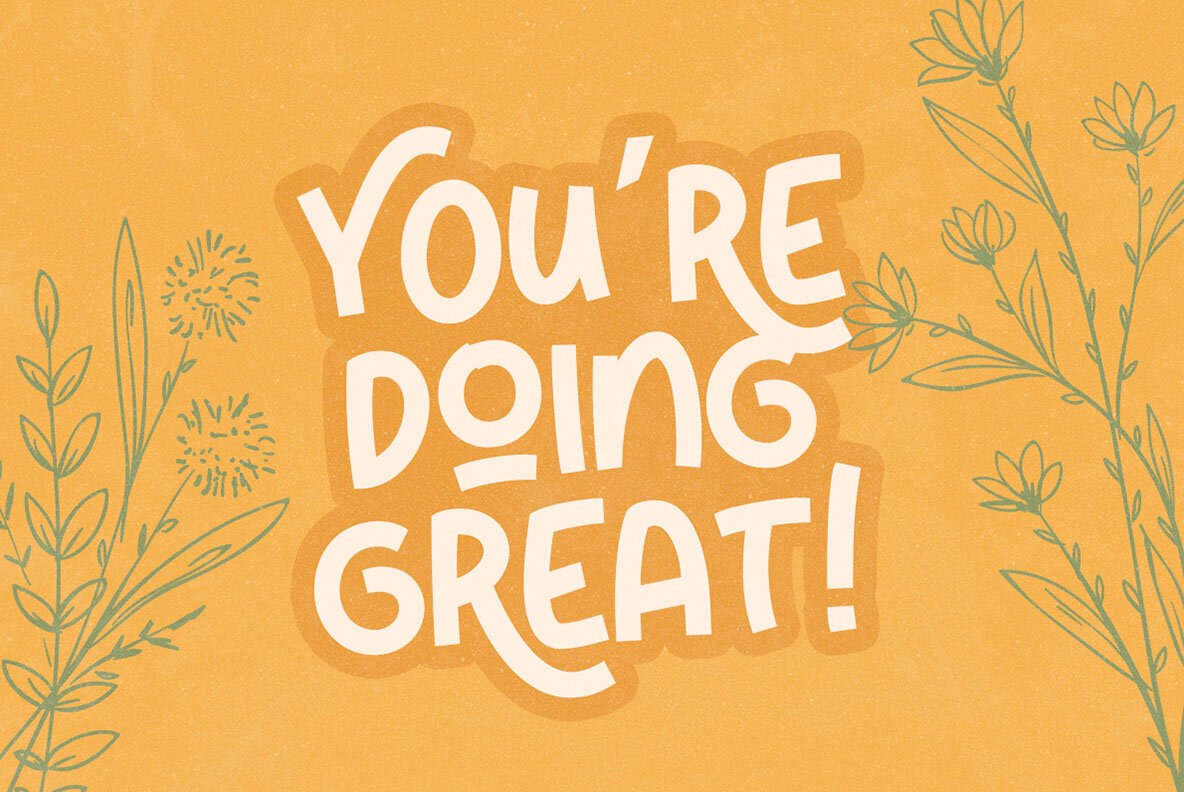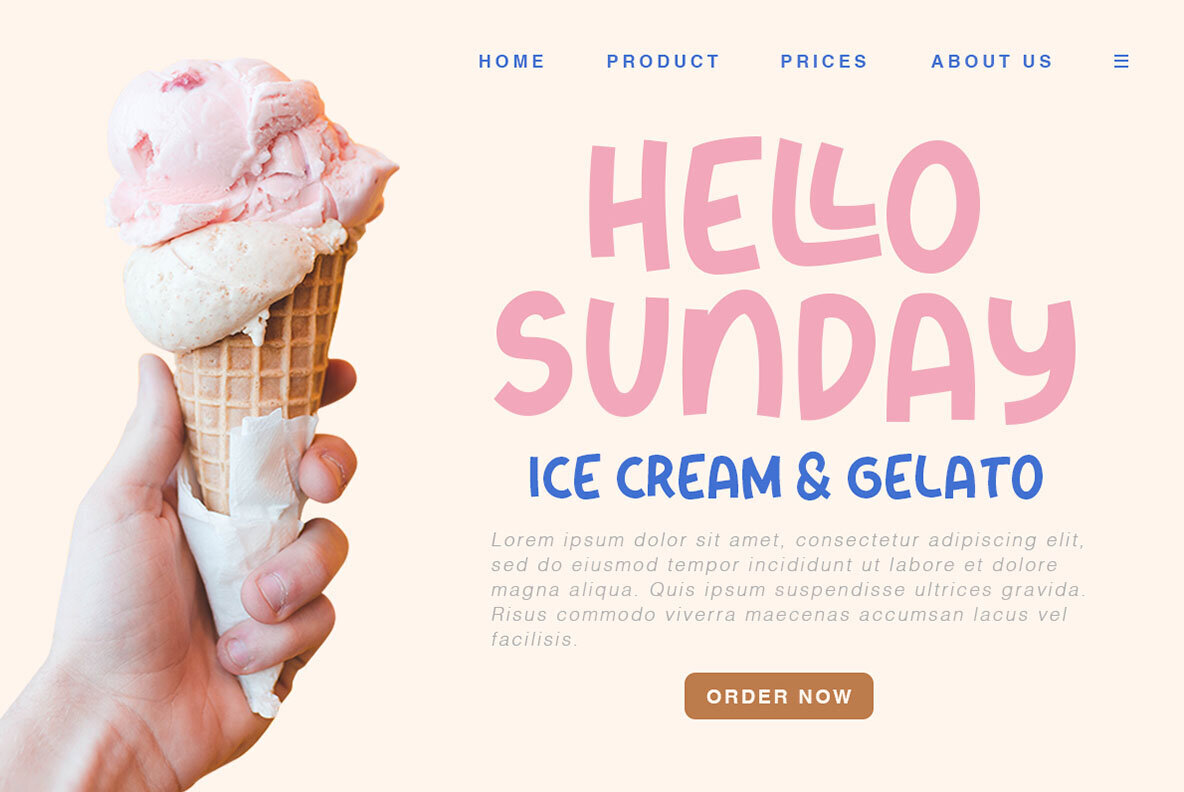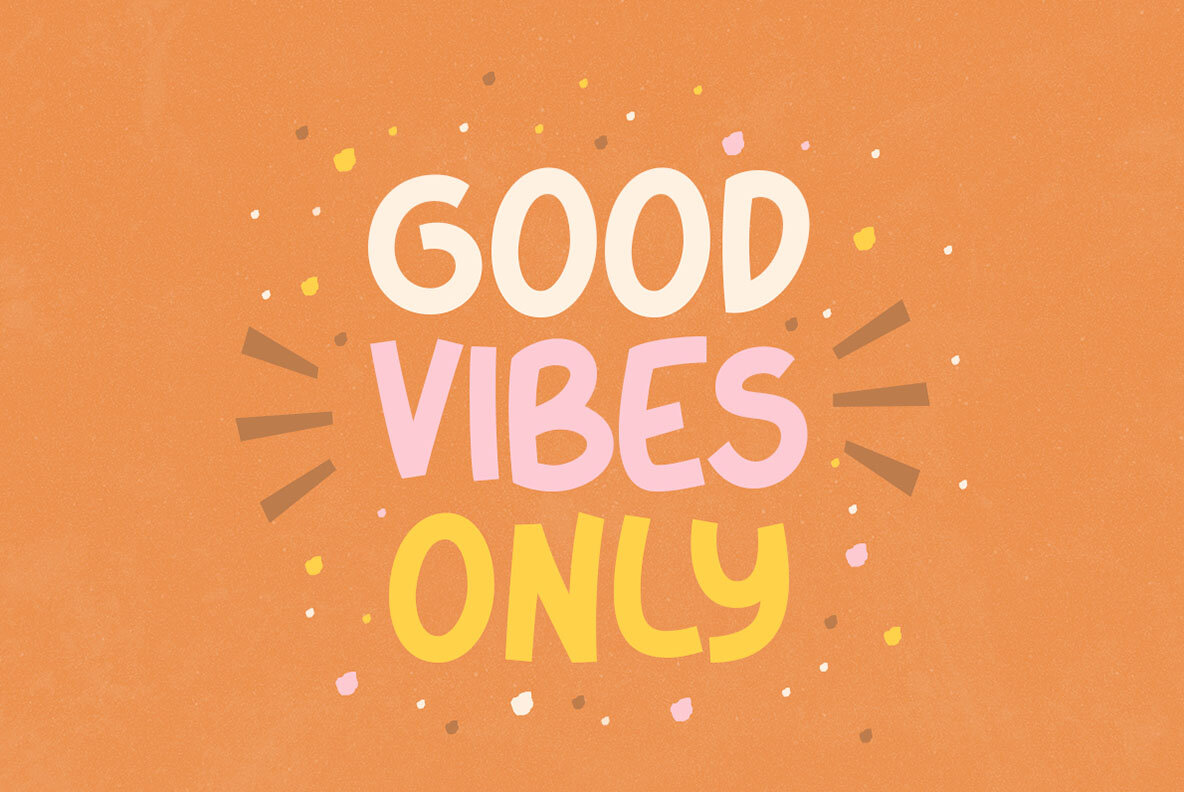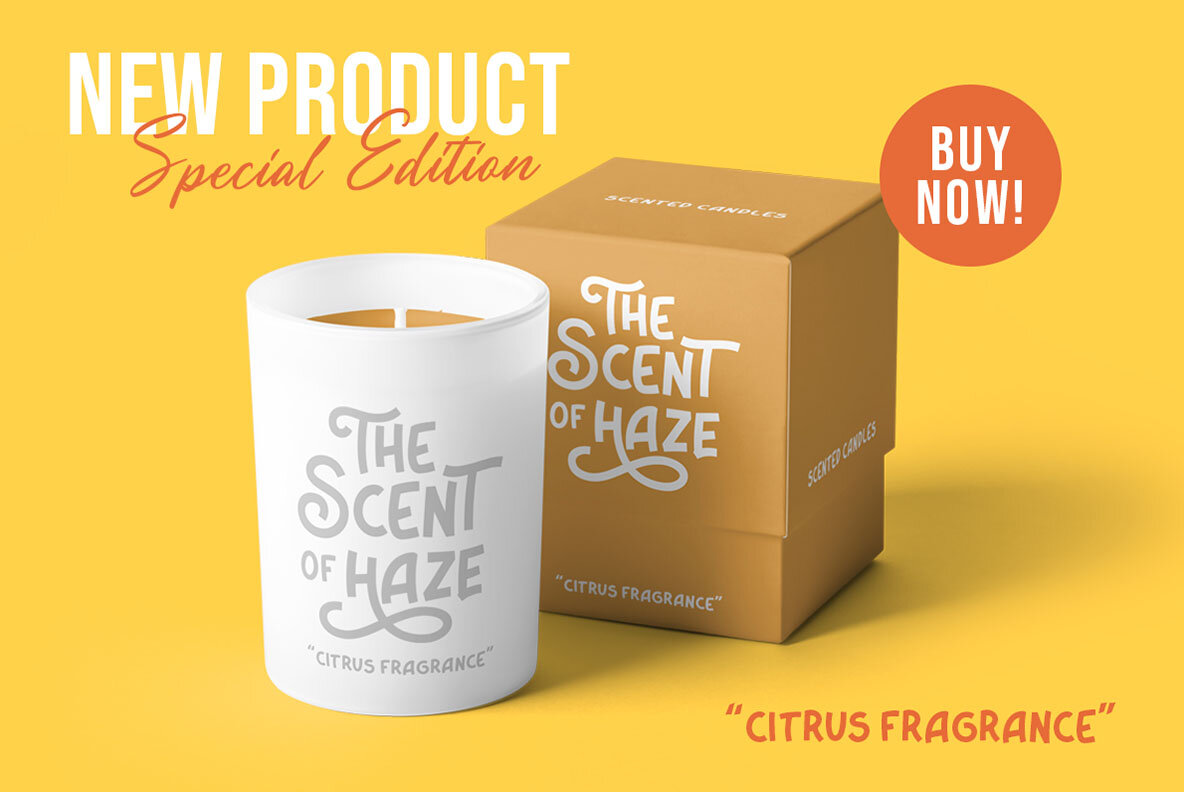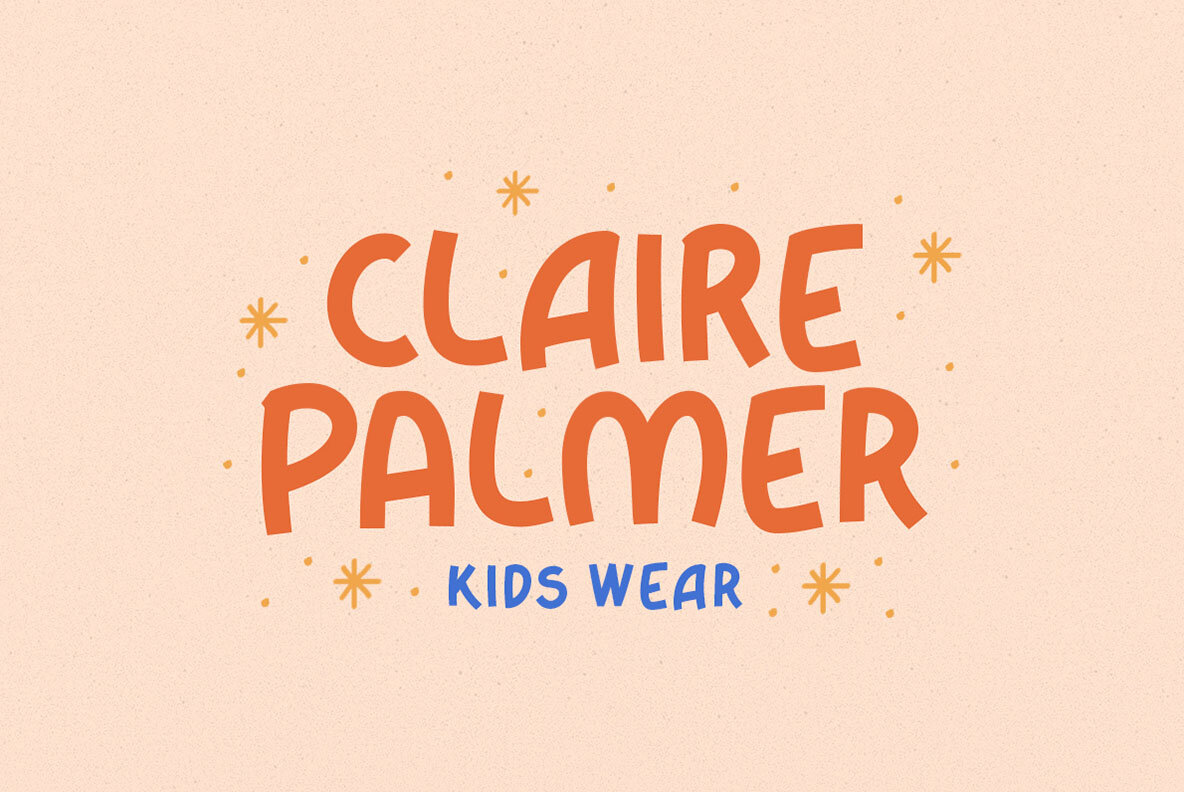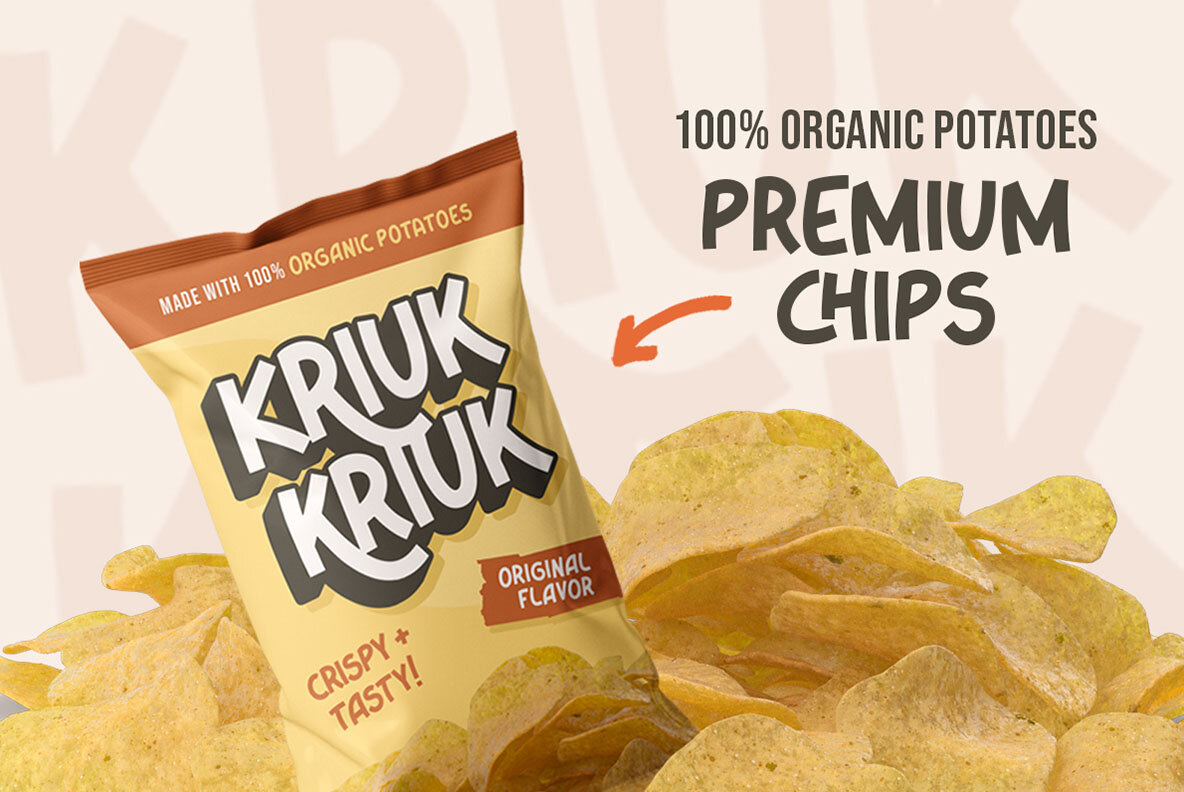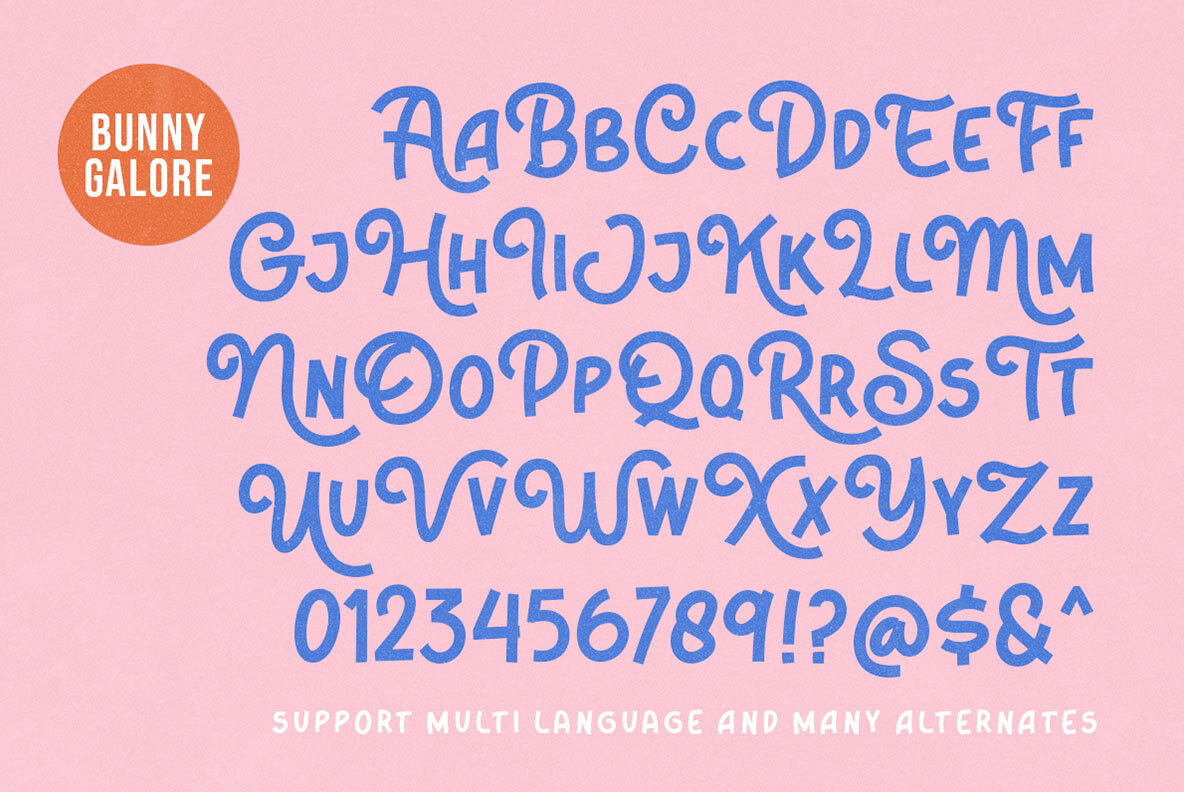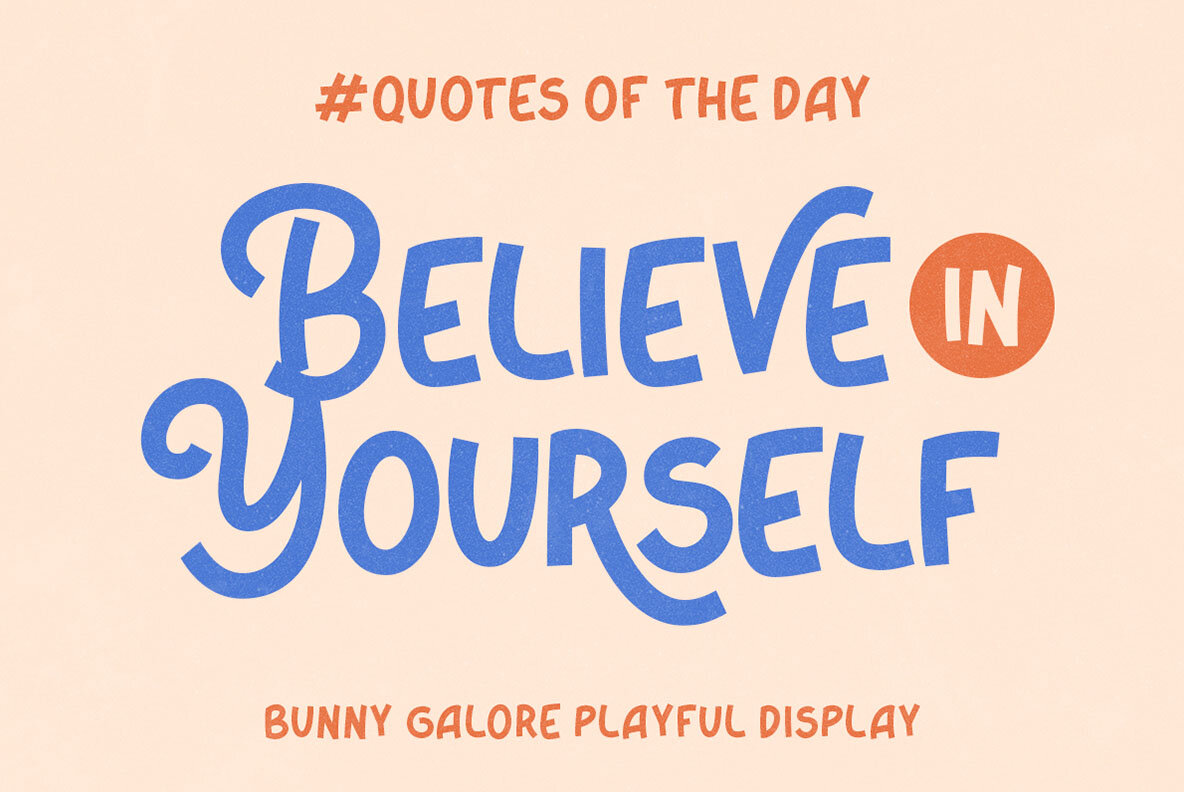
Bunny Galore Font
Bunny Galore Regular
Bunny Galore is a playful and stylish display font that adds a delightful and whimsical touch to your designs. With its unique letterforms and charming character, whether you're creating children's illustrations, packaging, or social media graphics, Bunny Galore brings personality and vibrancy to your designs, making them visually captivating and engaging. Features: